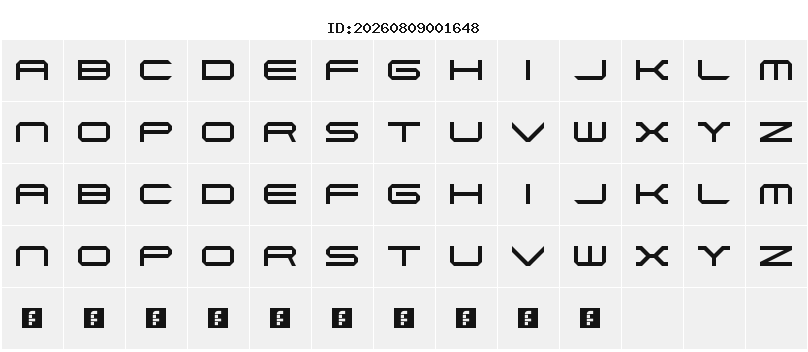
• Font Name: Piranha
• Font ID: FontStruct Piranha
• Full Font Name: Piranha Regular
• PostScript Name: Piranha
• Character Count: 55
• Designer: floor-3013
About Piranha.ttf
Piranha.ttf is a modern, elegant sans-serif font designed for ultimate readability and visual harmony. Perfect for branding, headlines, web design, and print materials.